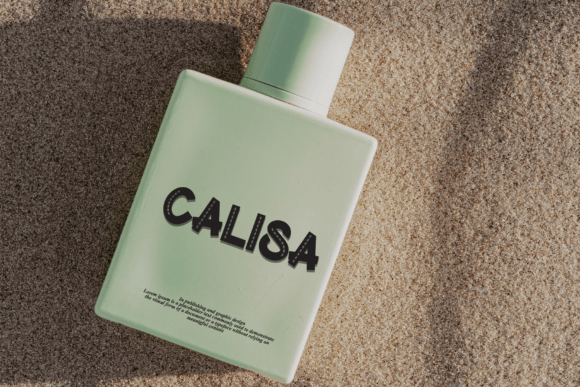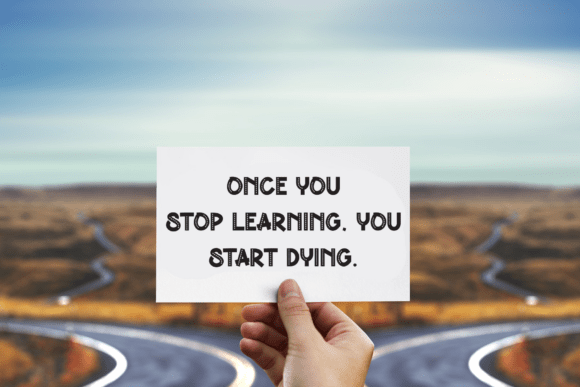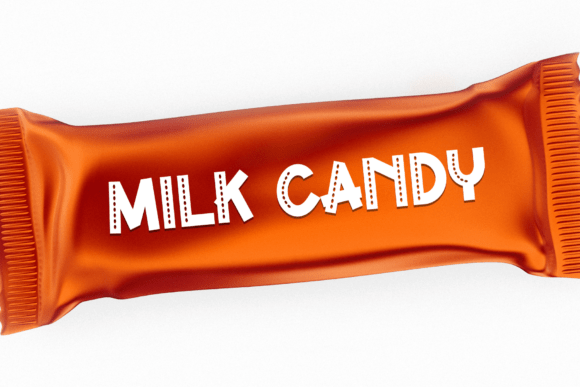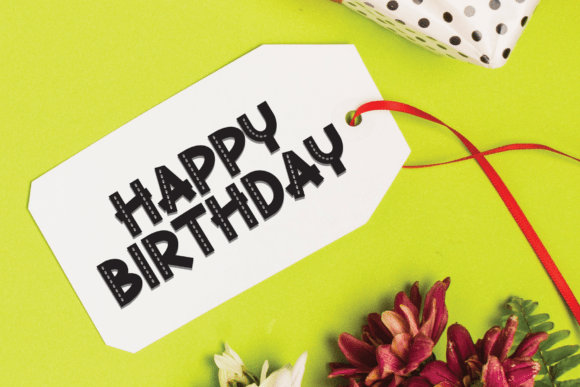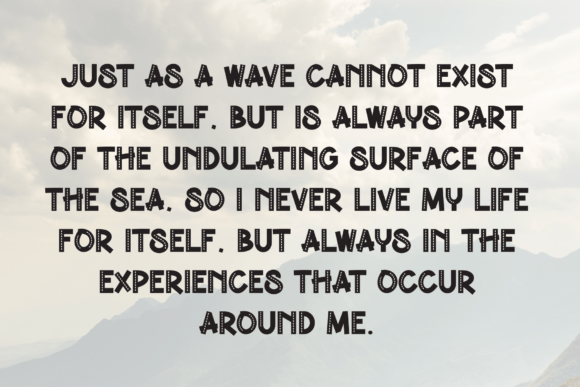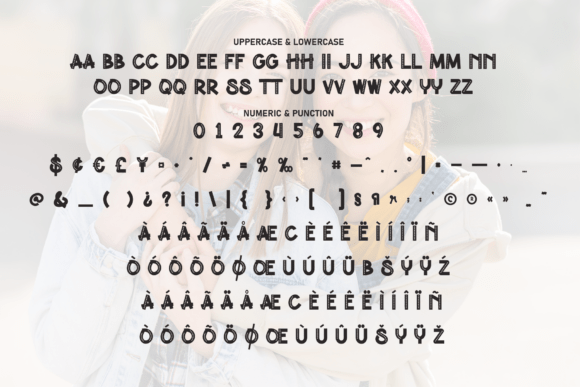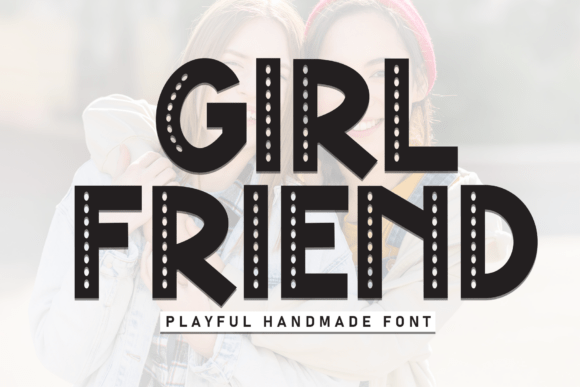
Introducing Girl Friend Font: The Perfect Blend of Simplicity and Friendliness
In the world of typography, fonts play a crucial role in conveying the tone and personality of a brand or design. For designers and crafters, finding the right font that captures the essence of their project can be a daunting task. However, if you’re looking for a font that combines simplicity with a friendly and approachable vibe, look no further than the Girl Friend Font.
What is Girl Friend Font?
Girl Friend is a casual and neat display font that has been designed to bring a touch of warmth and invitation to any design. Featuring clean lines, balanced letterforms, and subtle rounded edges, this font embodies the spirit of modern handwritten typography with a polished finish. Its unique blend of simplicity and friendliness makes it an ideal choice for a wide range of design applications, from branding and headlines to packaging and digital content.
Key Features of Girl Friend Font
- Clean Lines and Balanced Letterforms: The Girl Friend Font boasts clean lines and balanced letterforms that provide clarity and readability, making it perfect for use in headlines, titles, and short texts.
- Subtle Rounded Edges: The subtle rounded edges of the font give it a friendly and approachable feel, adding a touch of warmth to any design.
- Modern Handwritten Typography: The font combines the elegance of modern handwritten typography with a polished finish, making it suitable for a wide range of design applications.
- Versatile Style: The Girl Friend Font has a versatile style that can be used in various design contexts, from casual and playful to professional and elegant.
Use Cases for Girl Friend Font
The Girl Friend Font is an incredibly versatile font that can be used in a variety of design applications, including:
- Branding: Use the Girl Friend Font to create a friendly and approachable brand identity that resonates with your target audience.
- Headlines and Titles: The font’s clean lines and balanced letterforms make it perfect for use in headlines and titles, adding a touch of elegance and sophistication to any design.
- Packaging: Add a warm and inviting touch to your packaging designs with the Girl Friend Font, making your products stand out on store shelves.
- Digital Content: Use the font to create engaging and readable digital content, from social media posts to blog articles and website headers.
Benefits of Using Girl Friend Font
So, why choose the Girl Friend Font for your next design project? Here are just a few benefits of using this amazing font:
- Clarity and Readability: The font’s clean lines and balanced letterforms provide excellent clarity and readability, making it easy for your audience to read and understand your message.
- Warm and Inviting: The subtle rounded edges and friendly vibe of the font add a warm and inviting touch to any design, making it perfect for brands and designers who want to create a positive emotional connection with their audience.
- Versatility: The Girl Friend Font is incredibly versatile, making it suitable for use in a wide range of design applications and contexts.
In conclusion, the Girl Friend Font is an exceptional font that combines simplicity with a friendly and approachable vibe. Its clean lines, balanced letterforms, and subtle rounded edges make it perfect for use in a wide range of design applications, from branding and headlines to packaging and digital content. With its crisp structure and versatile style, this font delivers clarity and charm in equal measure, making it an excellent choice for designers and crafters looking to add a warm and inviting touch to their designs.
Get Ready to Elevate Your Designs with Girl Friend Font